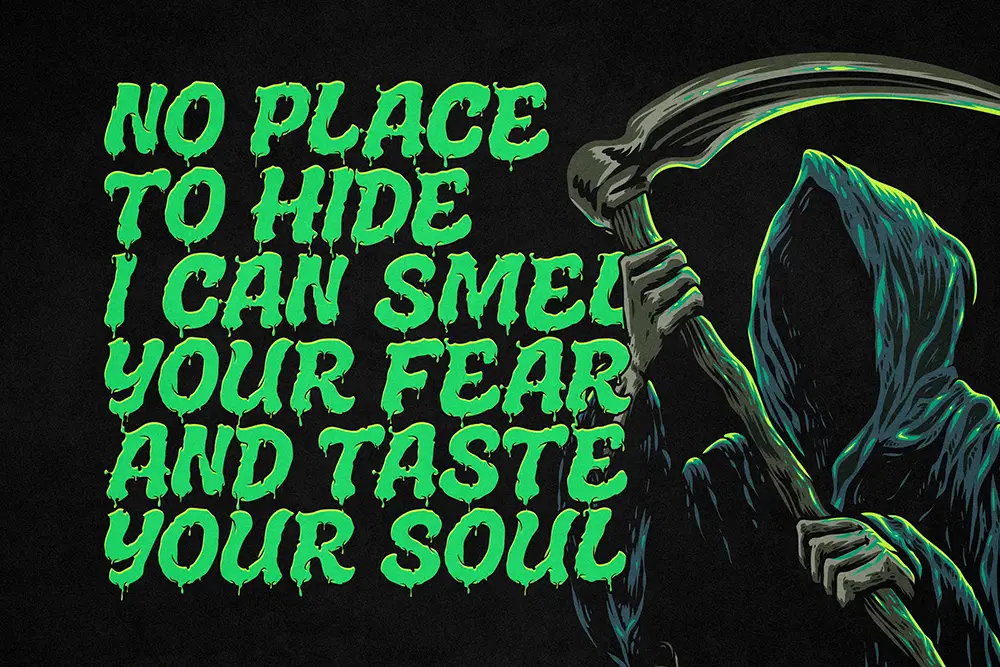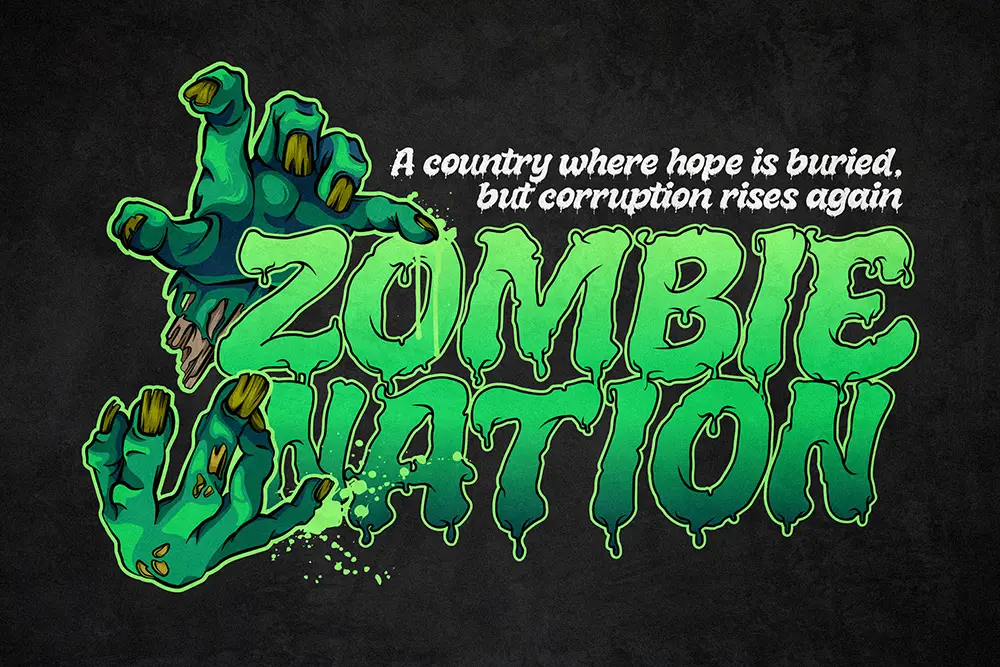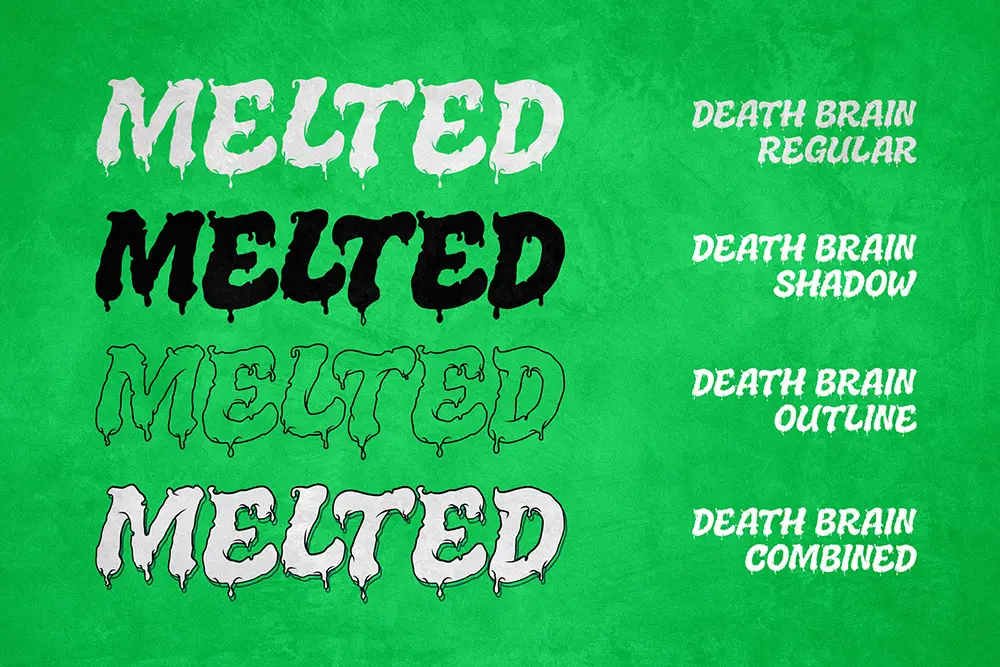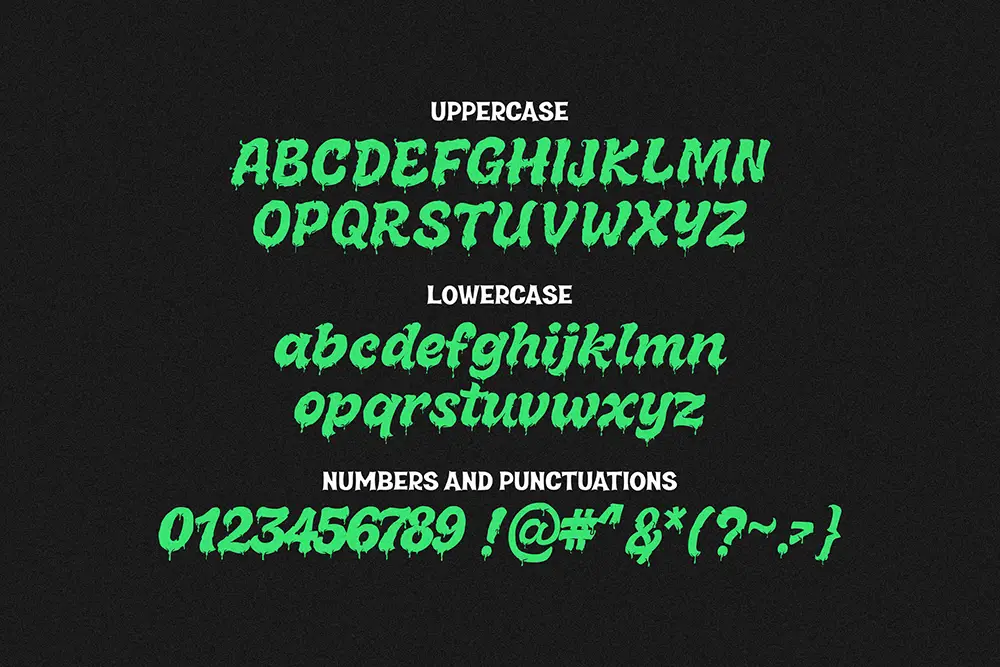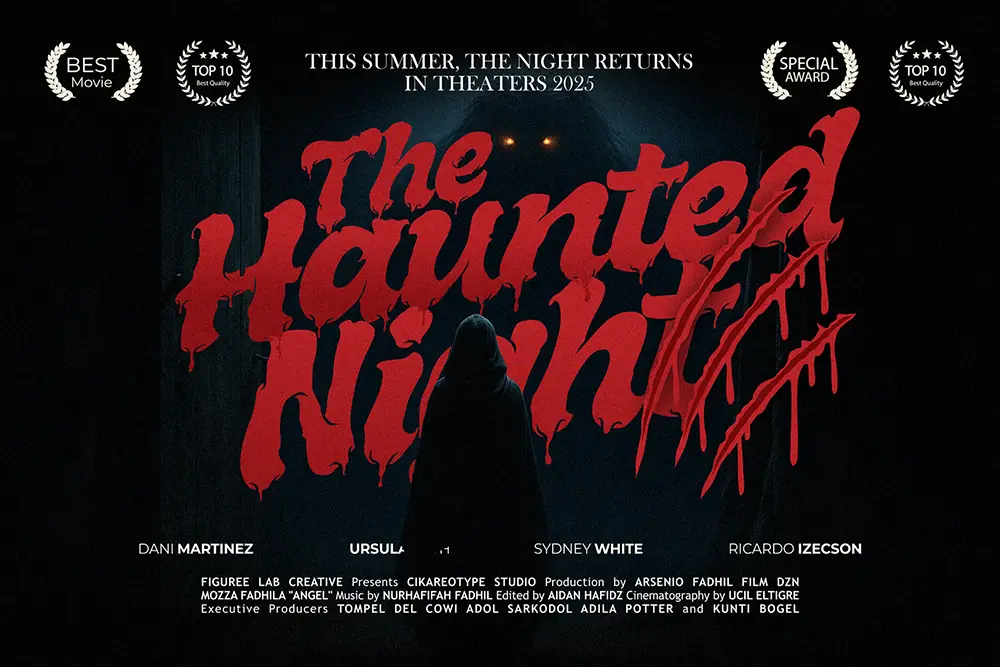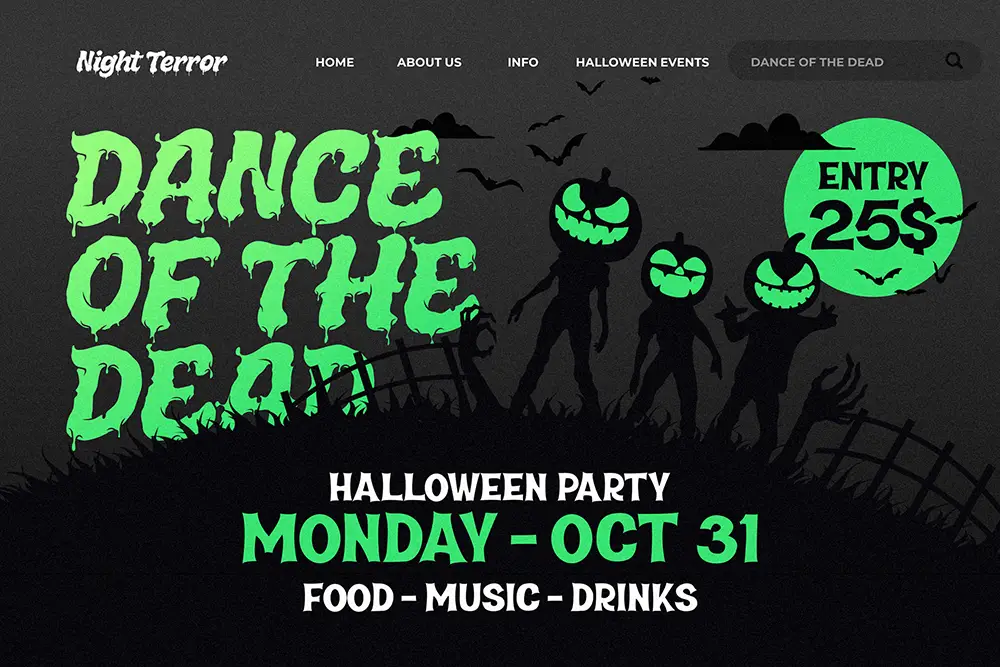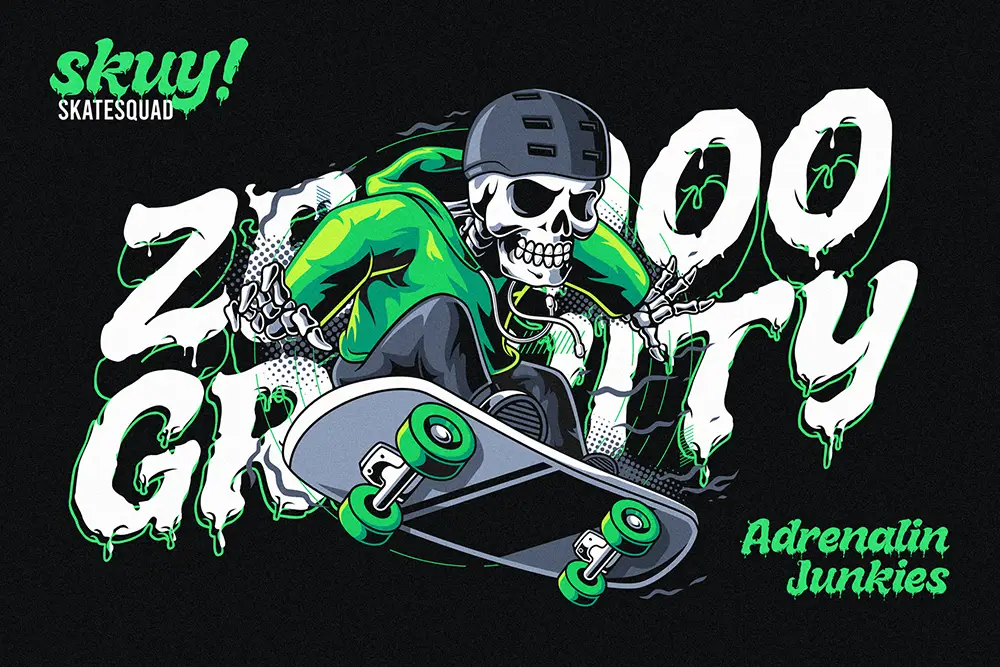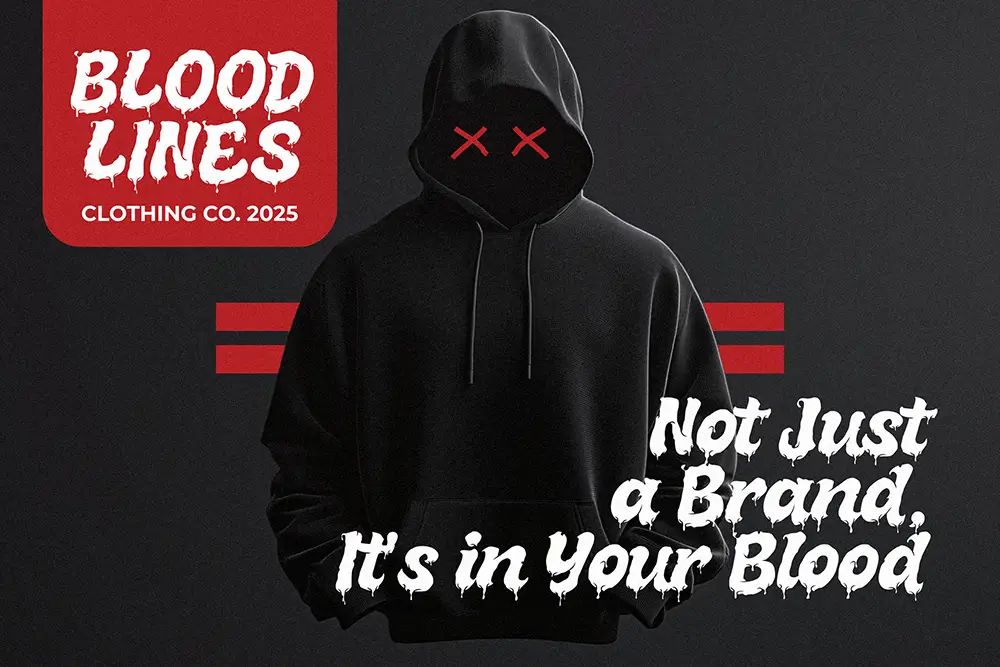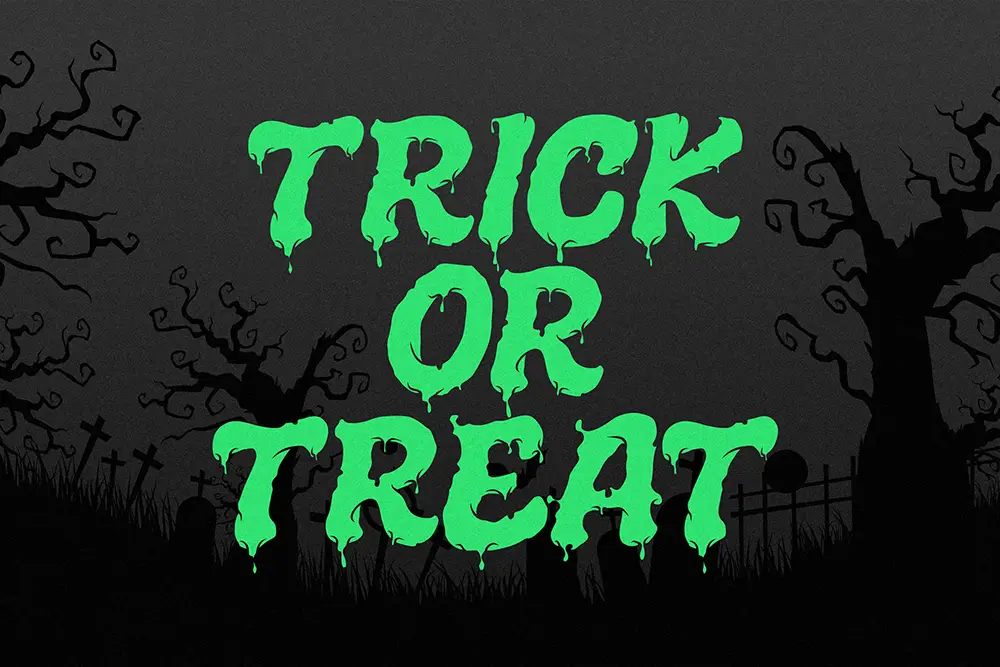
Introducing Melted Brain – A Halloween Font That Drips with Style
Step into the eerie world of Melted Brain, a dripping layered Halloween font that oozes with personality and dark charm. Designed for horror fans, Halloween lovers, and creative rebels, this font transforms your text into a haunting visual statement. With uppercase, lowercase, and numbers, plus three unique styles — Regular, Outline, and Shadow — Melted Brain offers endless creative possibilities for posters, party invitations, merchandise, and social media graphics.
Whether you’re designing a haunted house flyer, a creepy YouTube thumbnail, or a spine-chilling book cover, Melted Brain injects the perfect amount of fear and fascination into your design. The dripping effect mimics melting wax, goo, or slime, adding an immersive and sinister touch that makes your work stand out.
Key Features of Melted Brain
- Uppercase & Lowercase Letters – Full character set for maximum flexibility.
- Numbers & Punctuation – Perfect for complete and polished layouts.
- Three Styles Included – Regular, Outline, and Shadow for bold layered effects.
- Dripping Halloween Effect – Mimics melting wax, slime, or blood for that spooky vibe.
- Perfect for Print & Digital – Works great in posters, flyers, banners, and online posts.
- Optimized for Display Use – Large-scale clarity ensures it grabs attention.
These three variations allow you to stack and layer them for striking depth and texture in your designs.
Why Designers Love Melted Brain
Designers can’t get enough of Melted Brain because it combines fun, fright, and flexibility in one package. The layered system means you can create dimensional effects easily — stack the Shadow behind the Outline, or combine the Regular with the Shadow for a bold, dripping headline that screams Halloween spirit.
Its dripping style is not just limited to Halloween. Creative minds are using Melted Brain for punk band logos, slime-themed kids’ graphics, and creepy YouTube channel branding. The versatility of having three styles also means you can mix and match for both subtle and over-the-top designs.
How Melted Brain Elevates Your Designs
When you choose Melted Brain, you’re adding an instant horror and slime aesthetic to your project. The font’s strong readability, even with its dripping details, ensures your text commands attention without sacrificing legibility.
It’s perfect for:
- Halloween Posters & Invitations
- Horror Movie Titles
- Creepy Game Graphics
- YouTube Thumbnails & Social Media Posts
If you’re building an eerie, thrilling, or playful horror-themed design, Melted Brain delivers exactly the vibe you need.
Melted Brain is more than just a font — it’s an experience. Every drip, every curve, and every shadow has been meticulously crafted to bring out the spook factor while keeping your message clear. With three styles included, you have everything you need to create layered, dimensional, and attention-grabbing text.